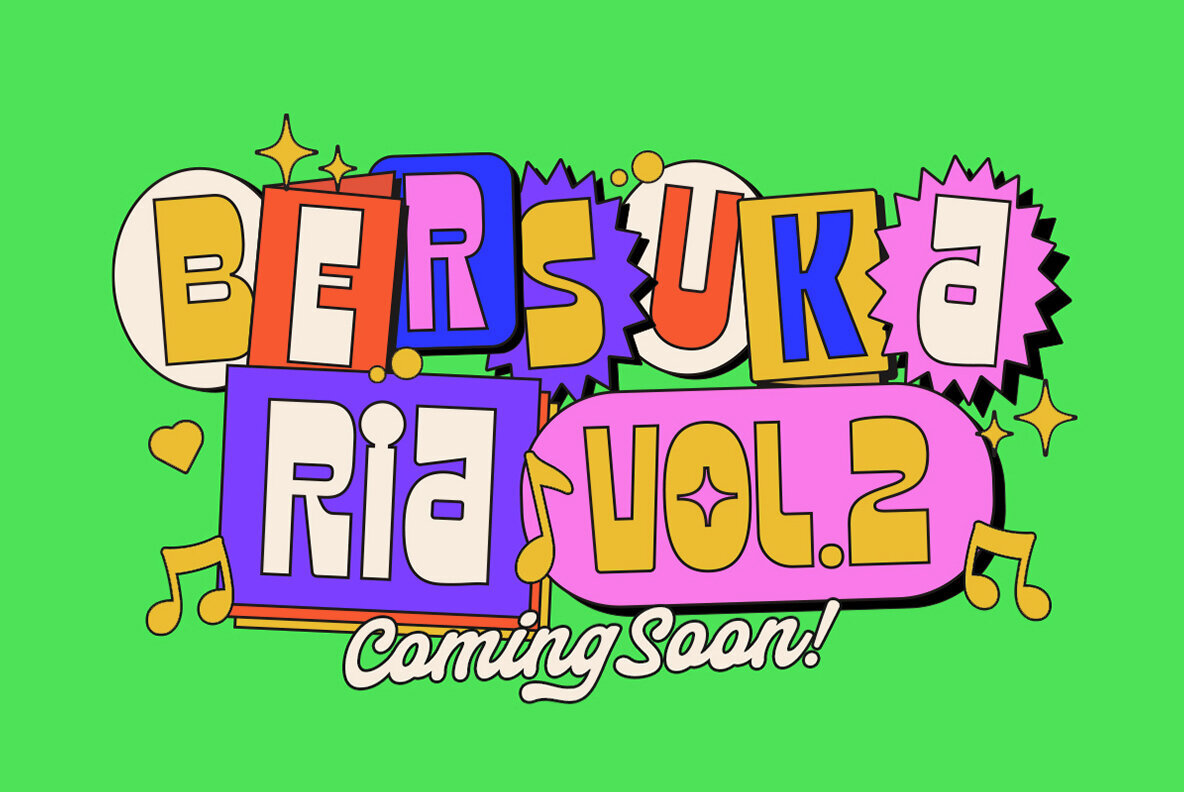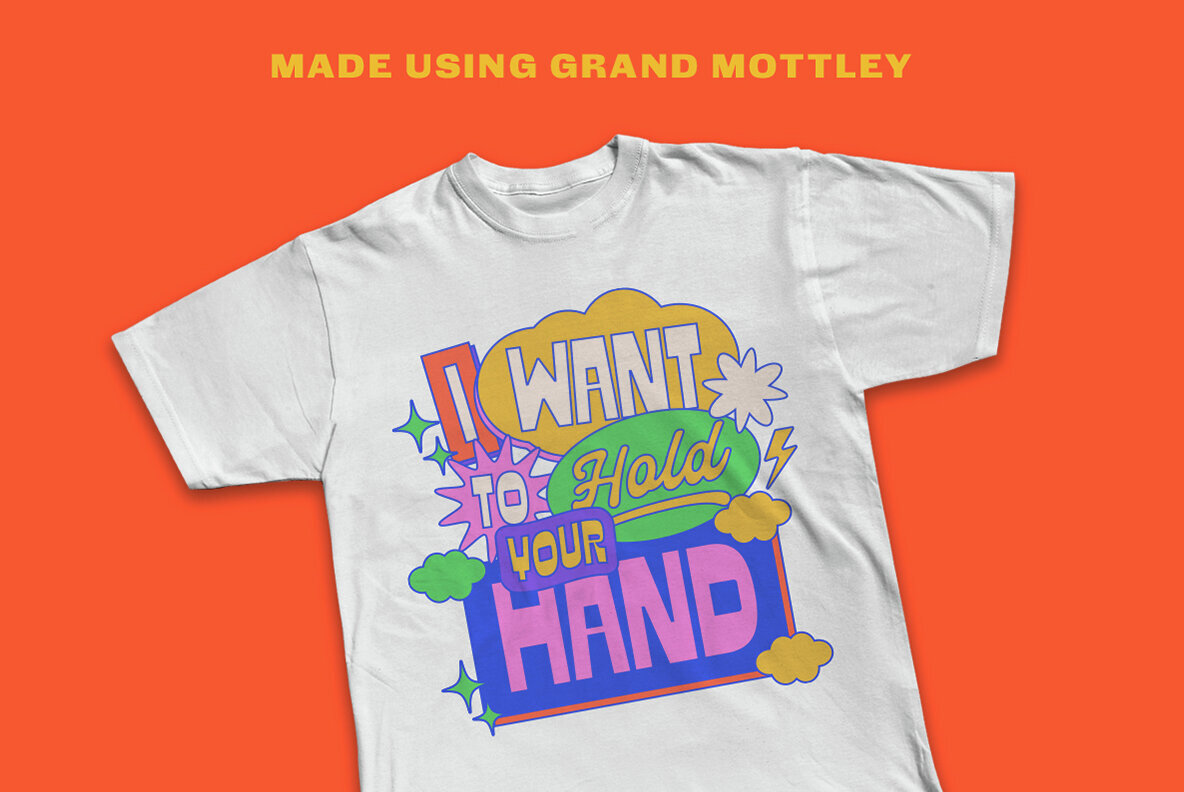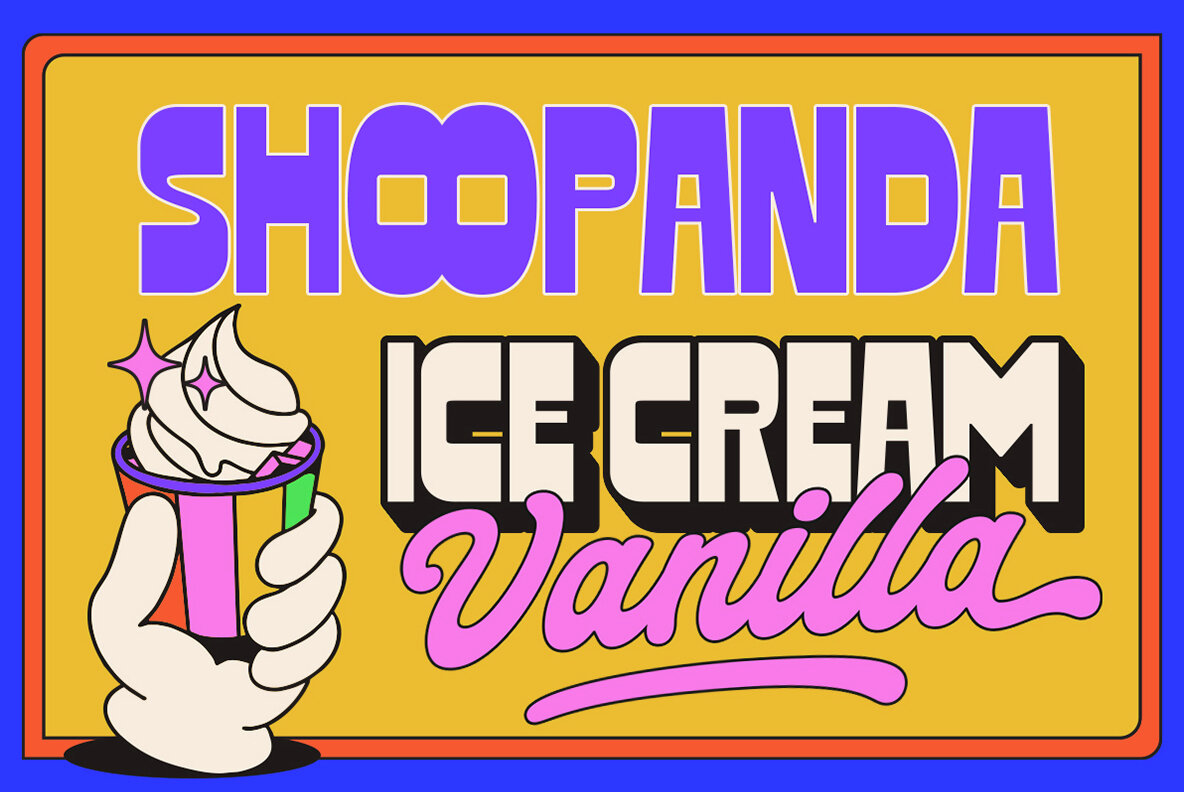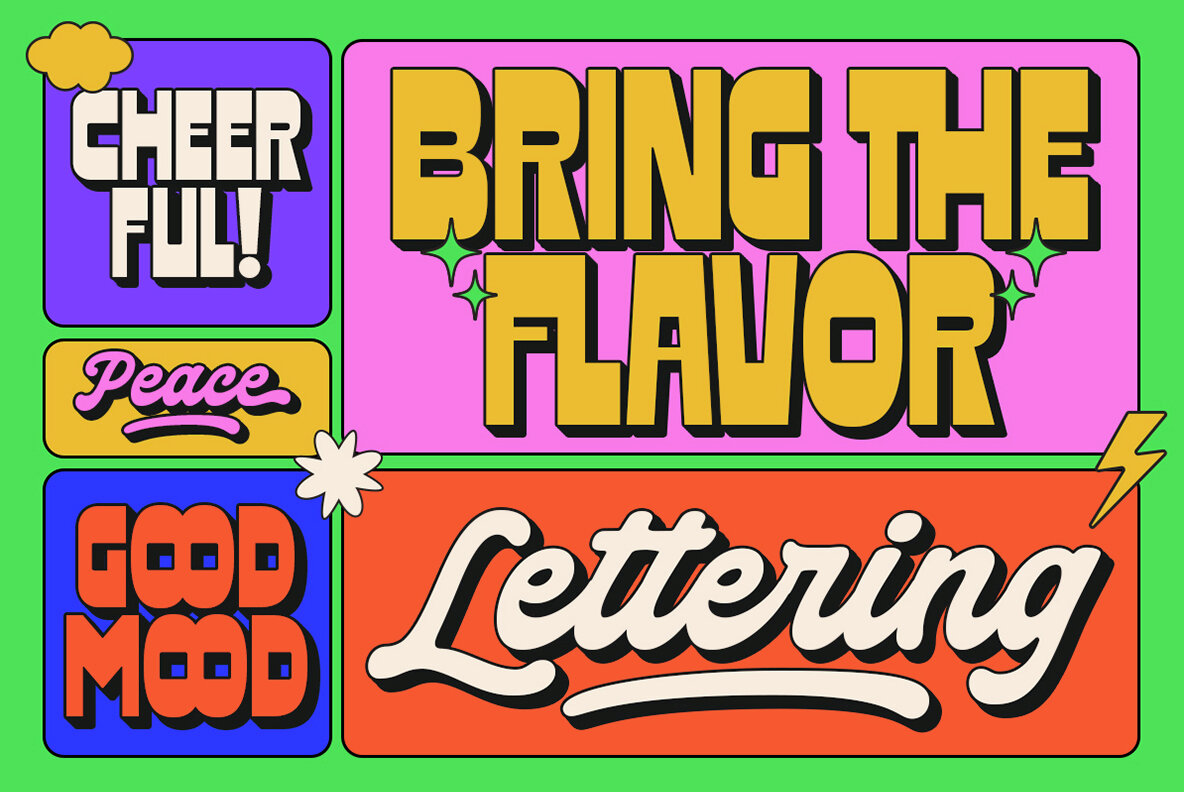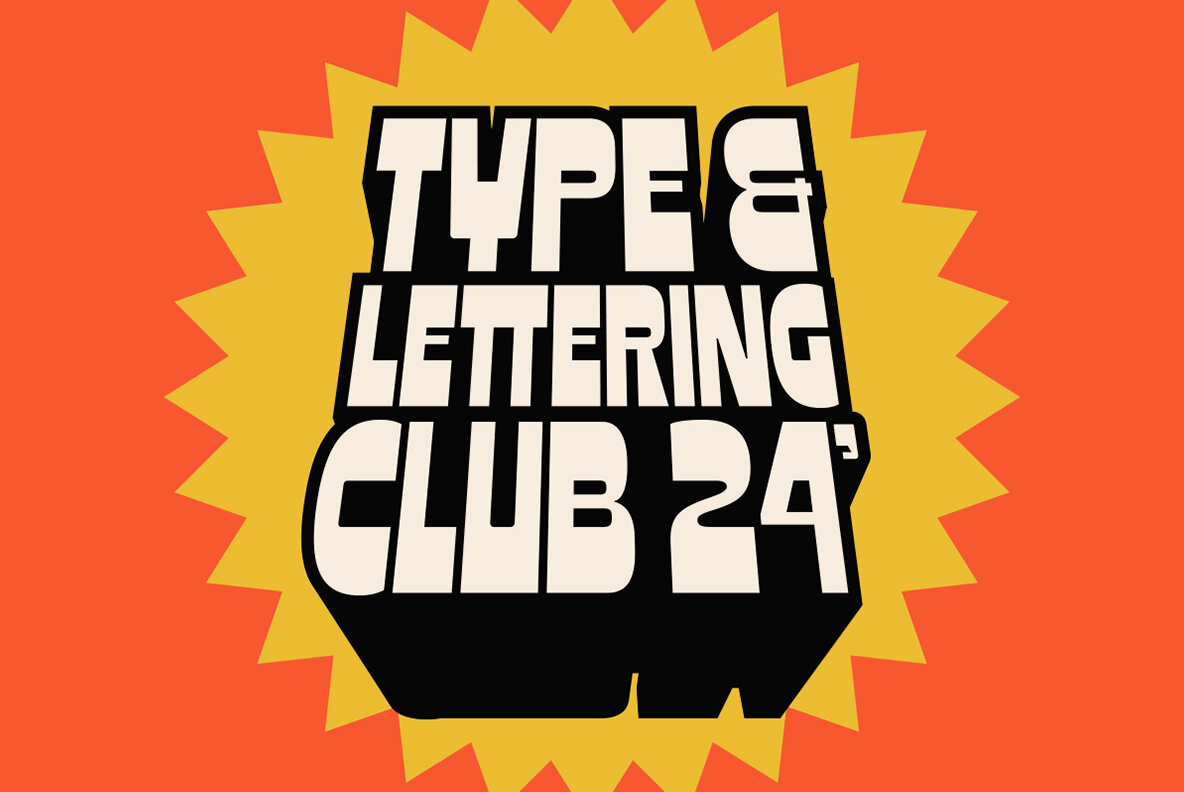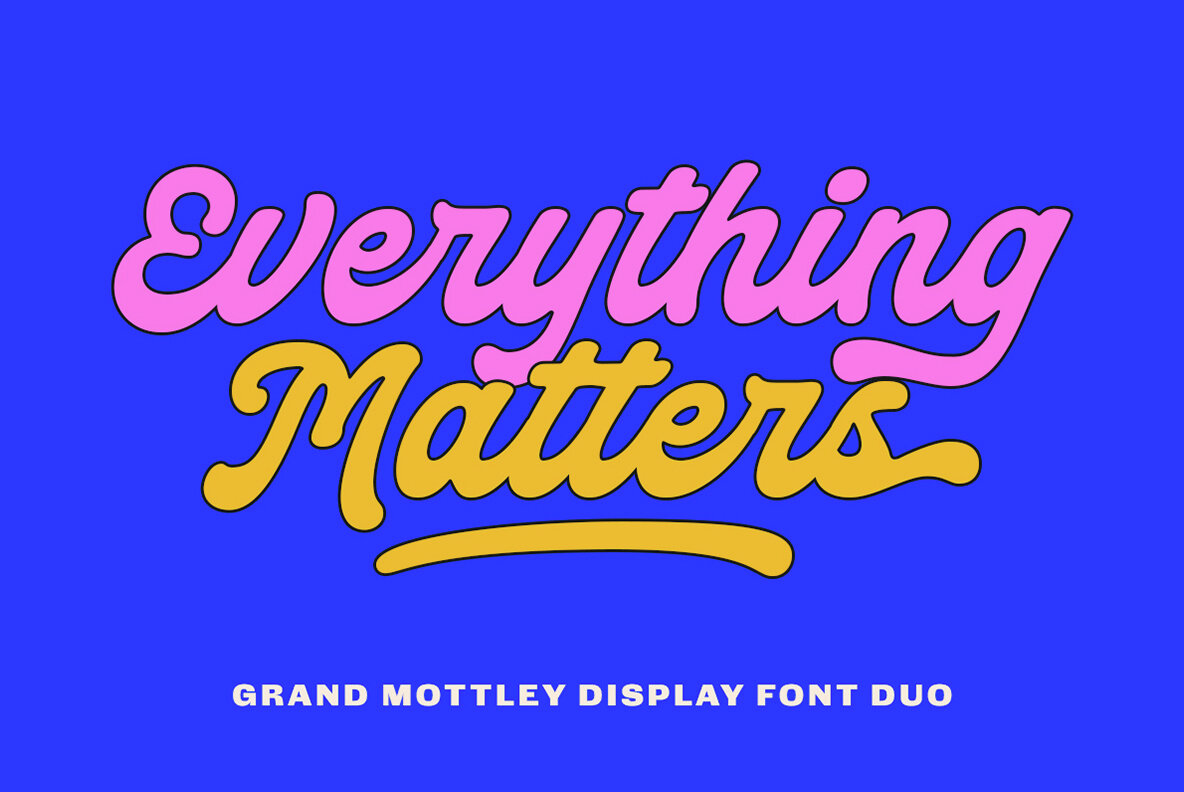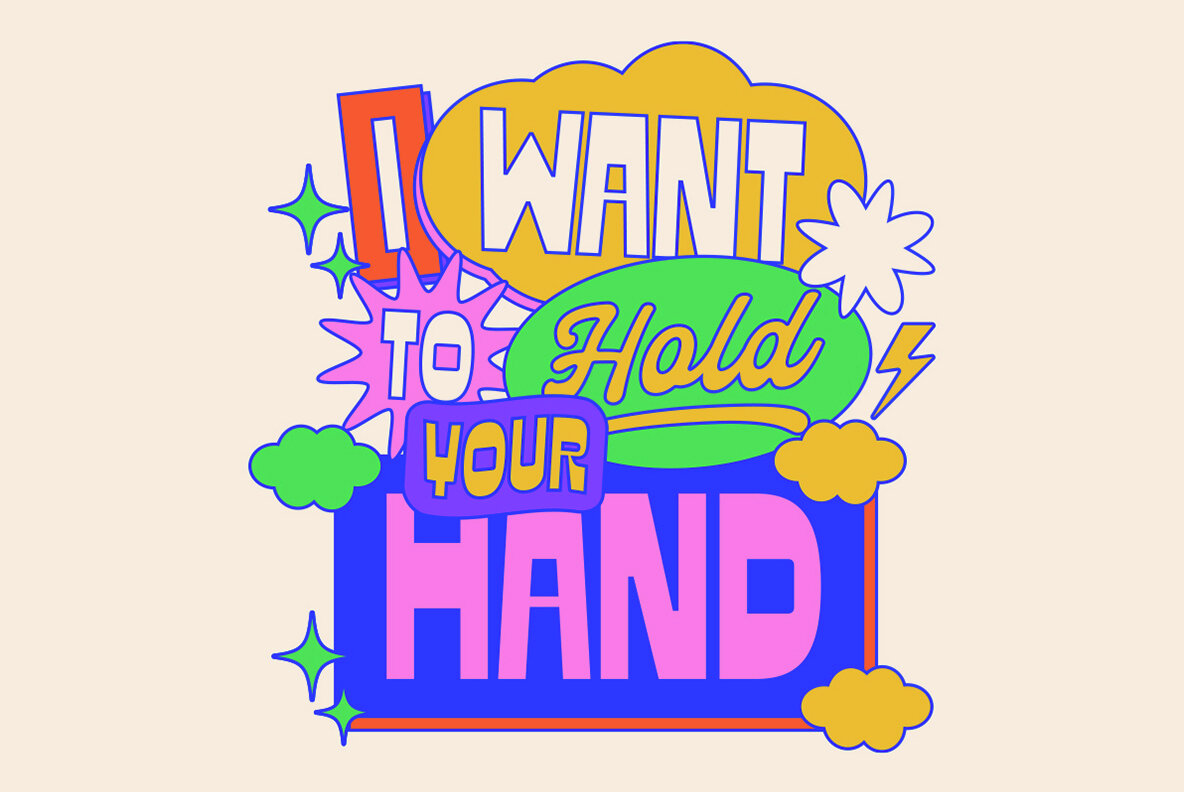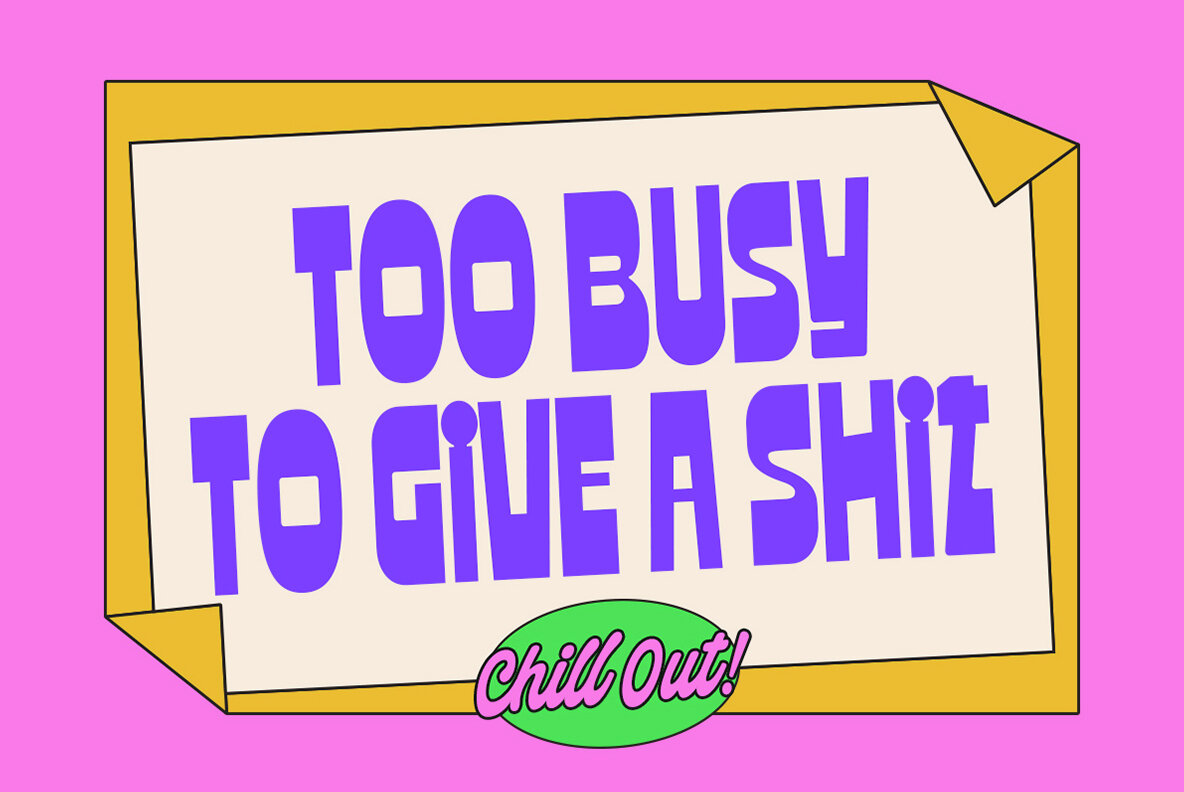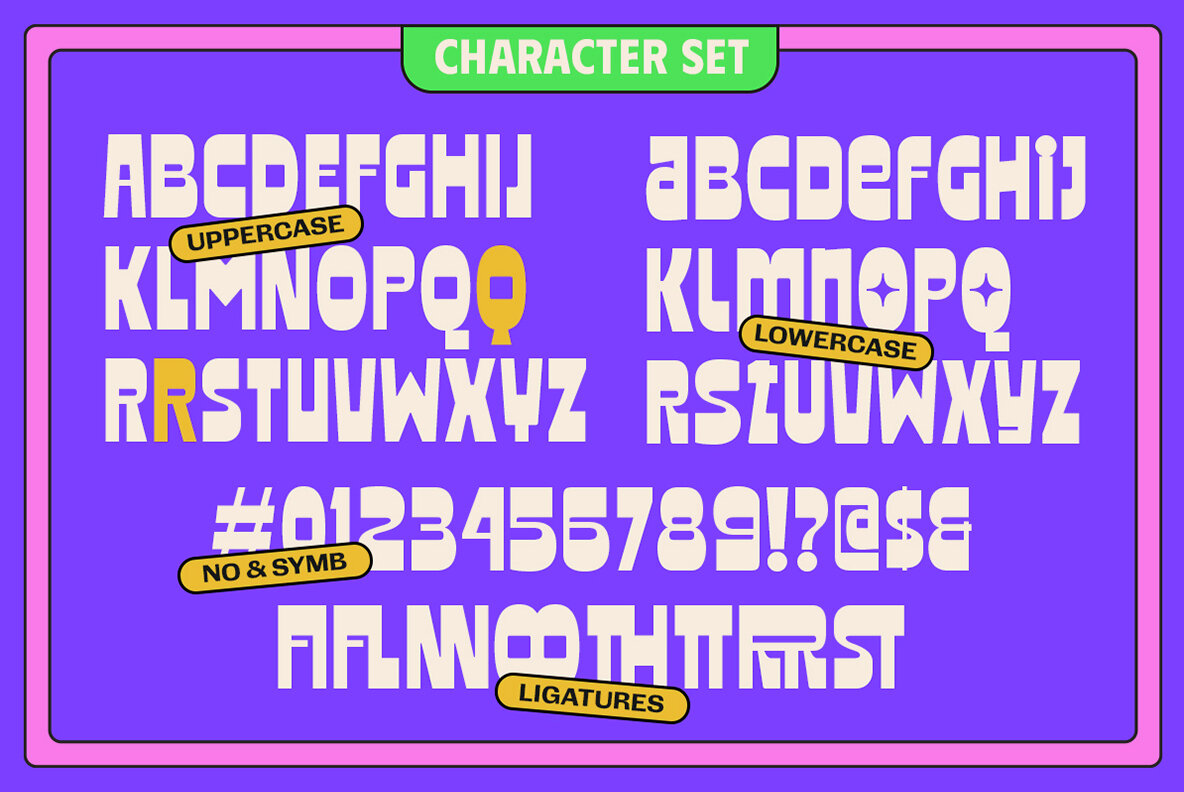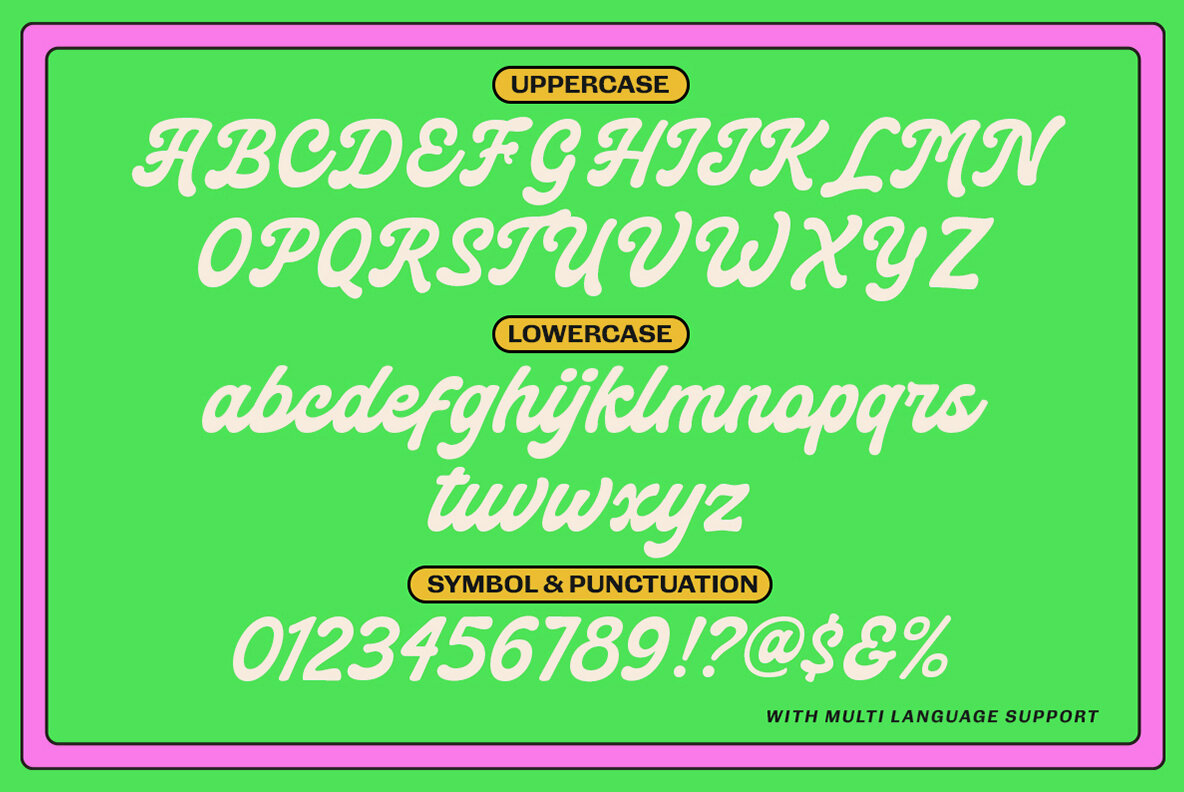
Grand Mottley Font
Grand Mottley Sans
Grand Mottley Script
This is a contemporary sans-serif, display font characterized by its geometric shapes and bold weight. Its clean, uniform lines and minimalist design provide high impact and excellent legibility, making it suitable for headlines, posters, and any context where a striking, professional appearance is needed. Its blocky, monolithic letters convey a sense of strength and modernity, perfect for urban and futuristic design projects.